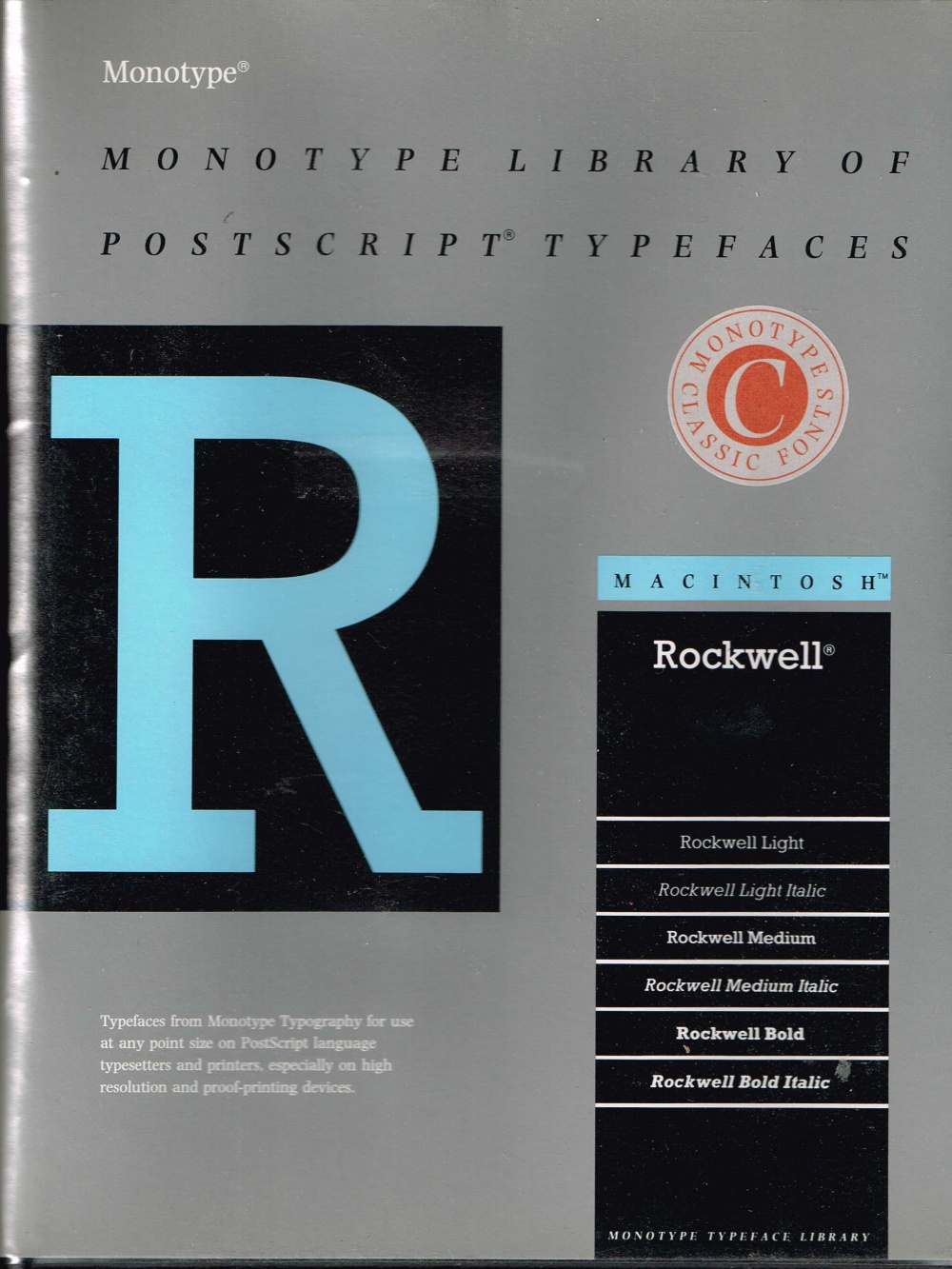
Monotype Library of Postscript Typefaces - Macintosh - Rockwell
Monotype Library of Postscript Typefaces provided Postscript Language Type 1 Fonts, in this case the Rockwell typeface. PostScript (PS) is a page description language which is dynamically typed, concatenative programming languageused in the electronic publishing and desktop publishing business. It was created at Adobe Systems by John Warnock, Charles Geschke, Doug Brotz, Ed Taft and Bill Paxton from 1982 to 1984. Rockwell font appeared with Monotype Design Studio in 1934, a time which saw the return to popularity of slab serif fonts. When Frank Hinman Pierpont, in collaboration with Monotype, decided to create and release the Rockwell typeface family in 1934, several unique characteristics, including differences in spacing, letter weight and subtle changes in glyph formation, were included. Slab serif fonts are versatile, as their often mono-weighted tendencies render them perfectly suitable for headlining and other applications requiring a steady, bold typeface. This package was intended for use with the Adobe Type Manager as commonly used on the Apple Macintosh and included Screen Fonts and Printer Fonts. Platform: Apple Macintosh 512Kb RAM 2xDisk 3.5 or Disk 3.5+Hard Disk Mac OS System 6.0 Finder 5.3 LaserPrep 3.3 LaserWriter 3.3 Font?DA Mover 3.8 (Supplied) Chooser 2.3 PostScript Printer System Software (SS:) Non-Executable (NE:) Fonts Version: 1988